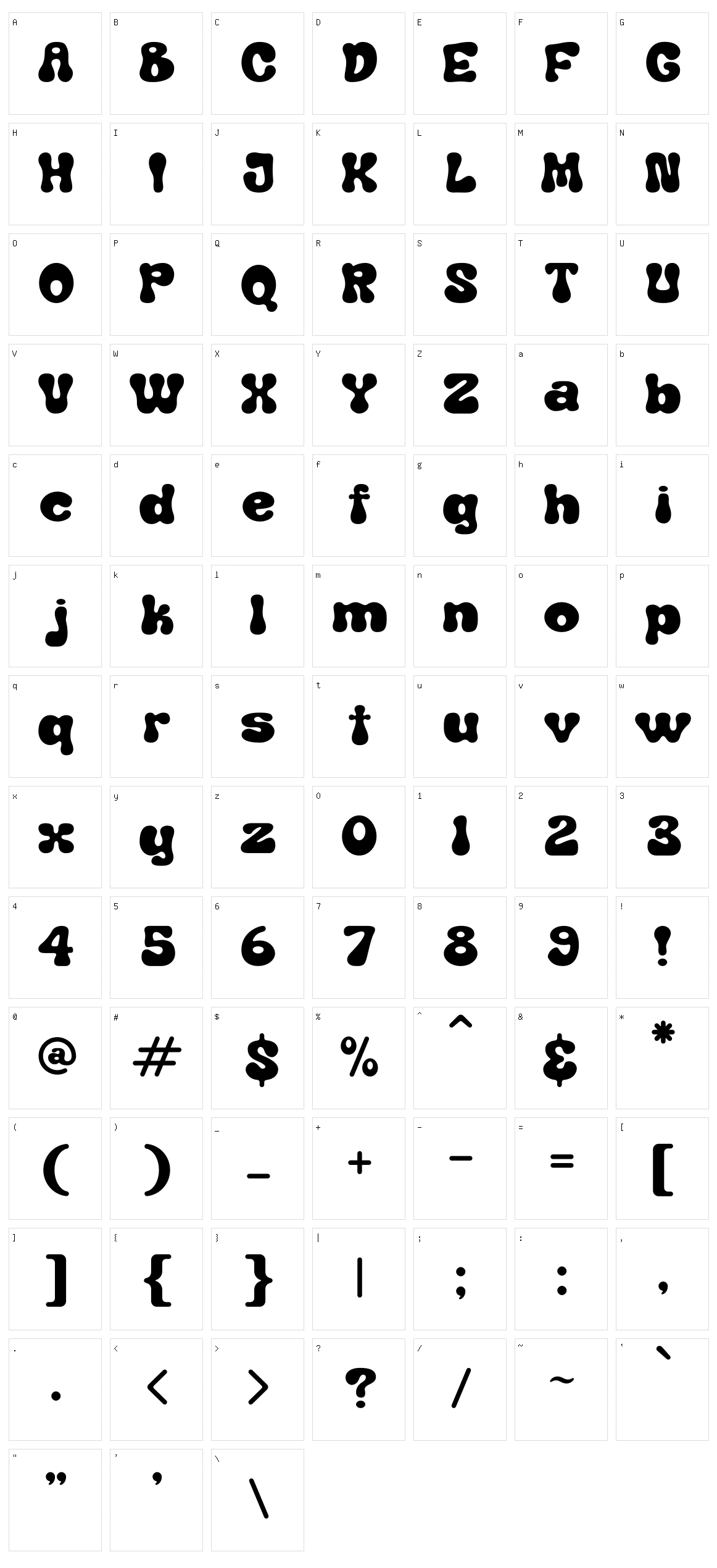
The free font Benomout is carefully designed by Storytype Studio, showcasing a thoughtful balance of creativity and usability and falls under the Groovy font style. When you download the ZIP file, it contains only 29.34 KB of font files, making it lightweight and quick to download. Please review the license details below to understand permitted usage and distribution rights. If license information is not available, we recommend using this font for personal projects only or contacting the author directly for commercial usage permissions.